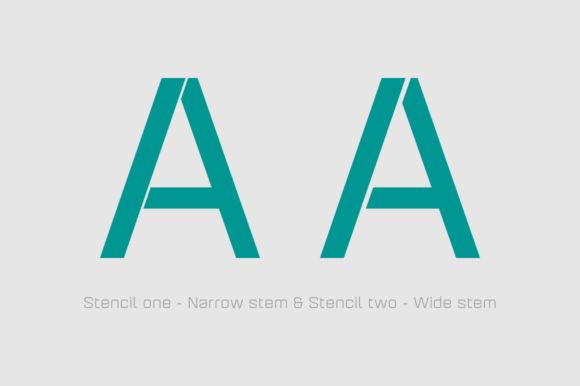
Introduction to Aguda Stencil Family Font
Aguda Stencil font family is the stencil version of the Aguda font family and has been designed for Graviton Font Foundry by Pablo Balcells in 2014.
Aguda Stencil consists of 16 styles The 8 โStencil 1โ styles contain a narrow stem for big sizes type and/or rigid materials printing, and the 8 โStencil 2โ styles contain a wide stem for small sizes type and/or light materials printing.